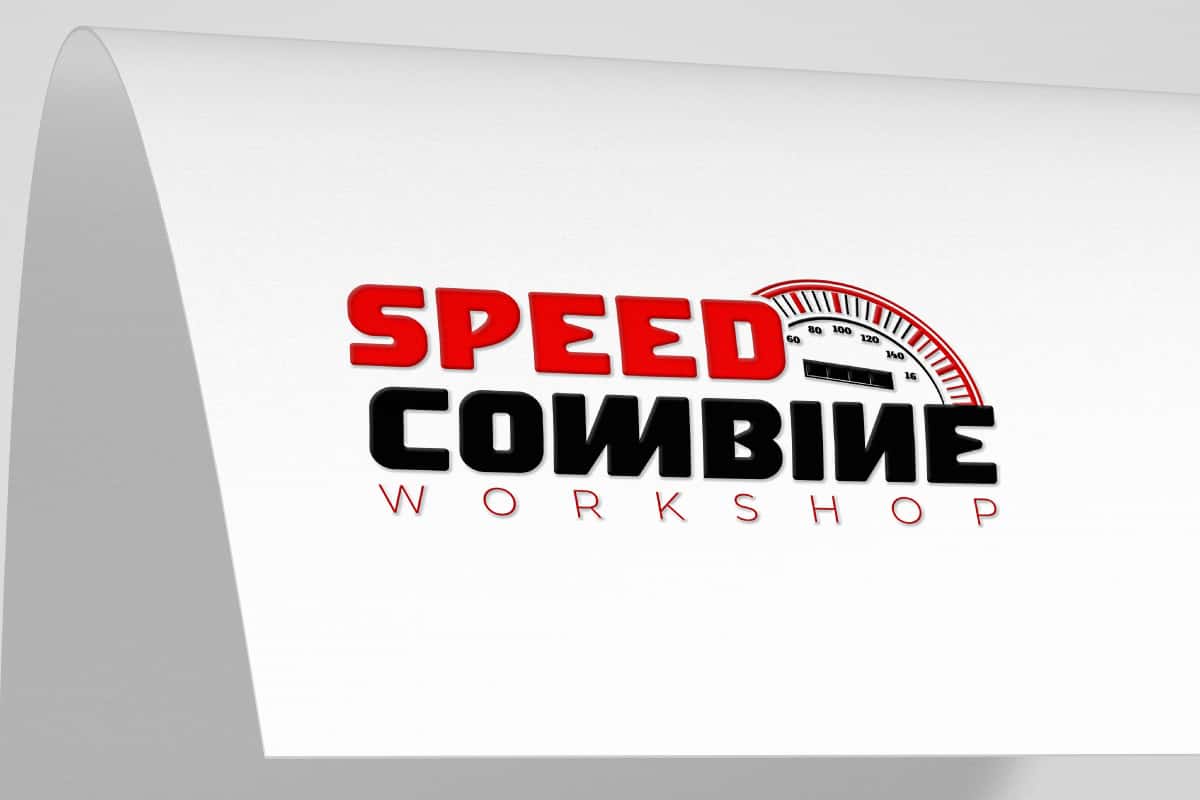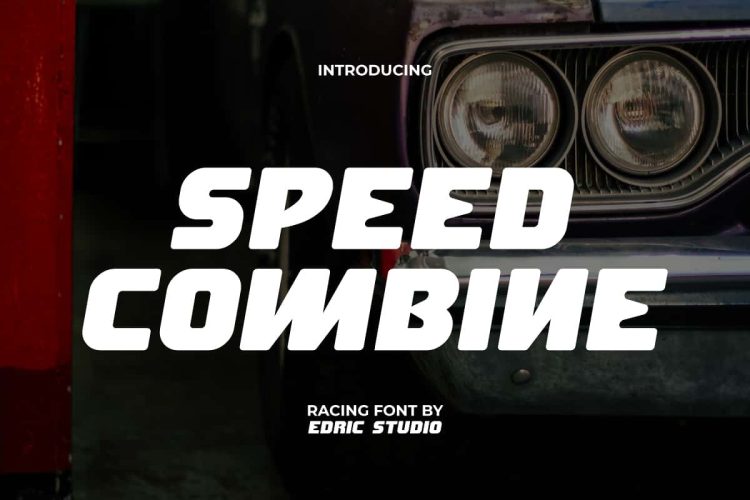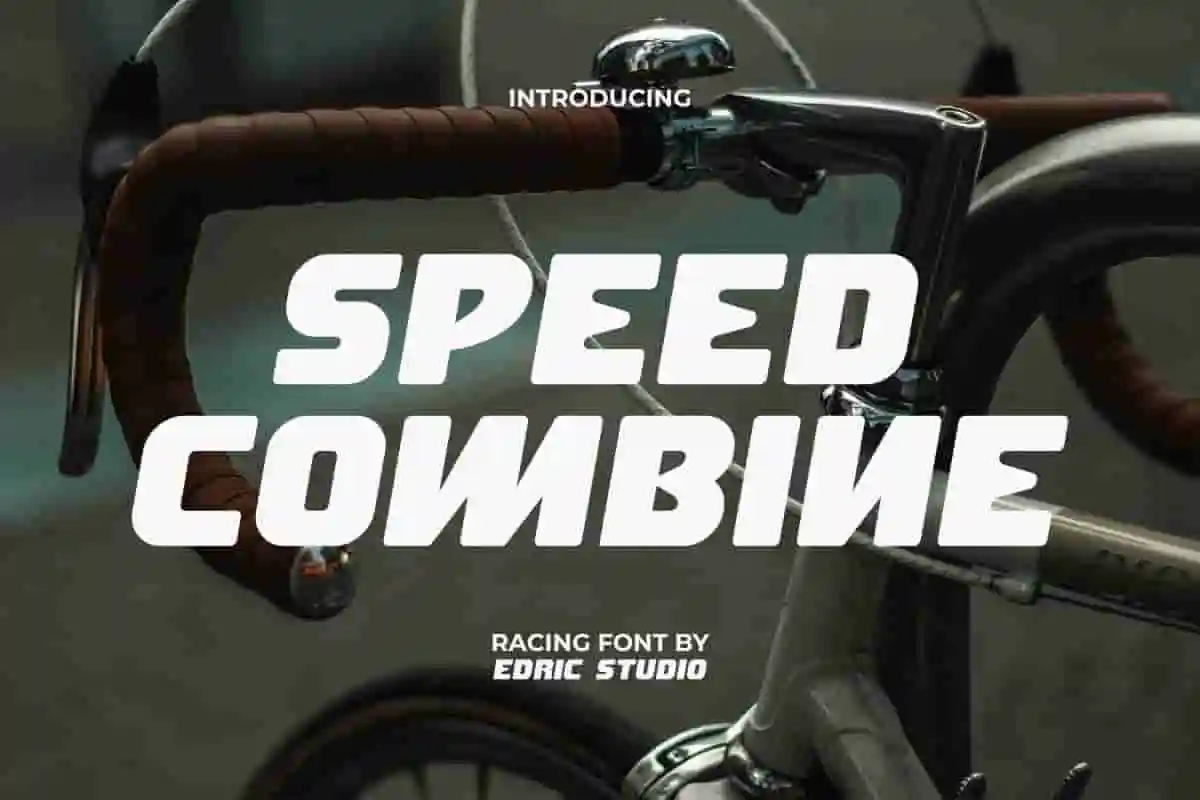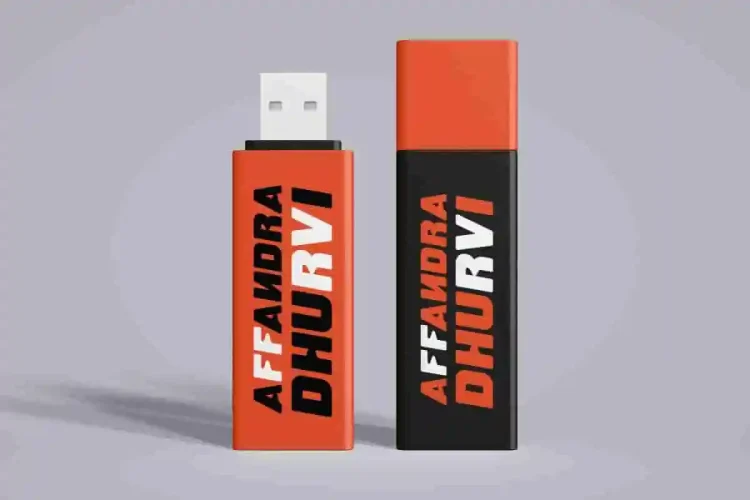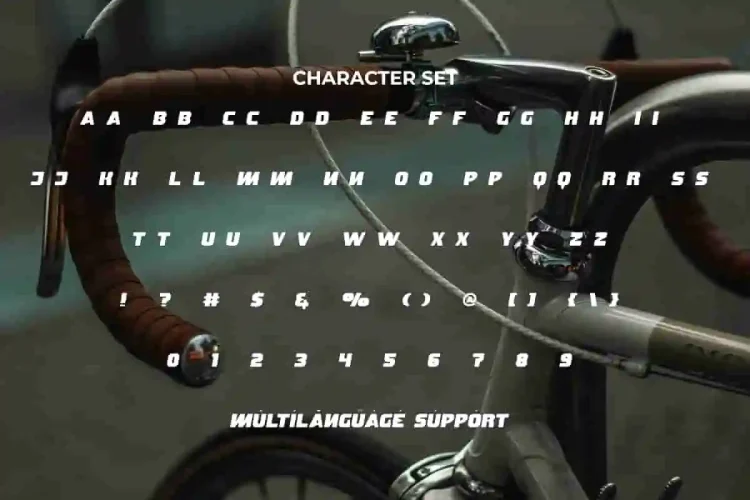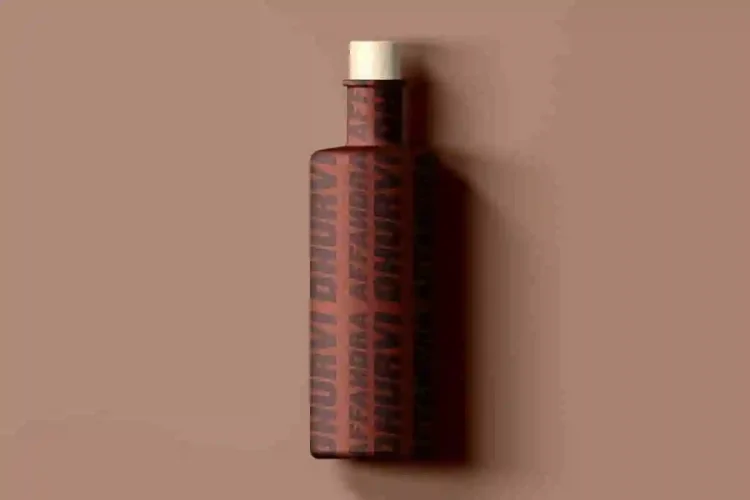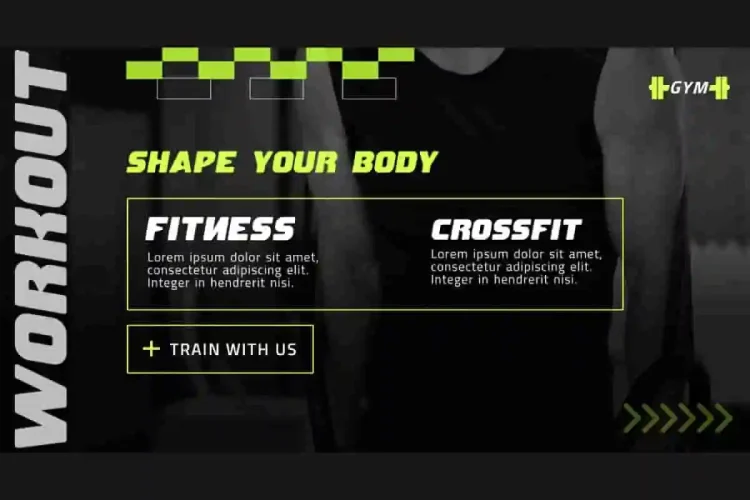
Speed Combine Font is a bold display font with a sporty style, with rounded corners and a slight slant for a dynamic effect. This will appeal to any type of advertising purpose that requires a courageous font look. It has a unique appeal and easy visual readability, making it perfect for banners, billboard, blogs, flyer, label, logos, mockup, packaging, poster, printed materials, stationery, stickers, template, website, and more.
Speed Combine Font includes a complete set of ALL CAPS for both Uppercase and Lowercase letters, Numbers, Punctuation, and Symbols. This amazing font has a strong character that combines racing and techno styles with slightly flared letterforms. Of course, that style can enhance the look of your design to be stronger! Ideal for accessories and merchandise, game, graphic designer, races, sports, training center, etc.